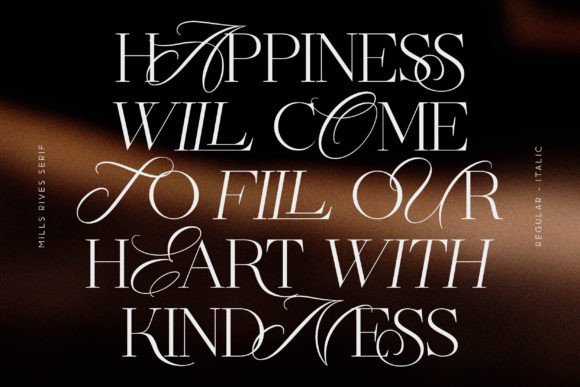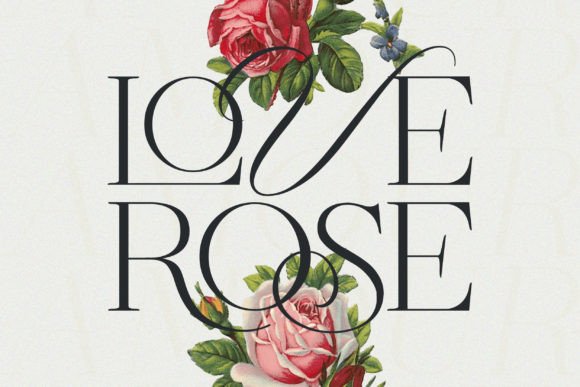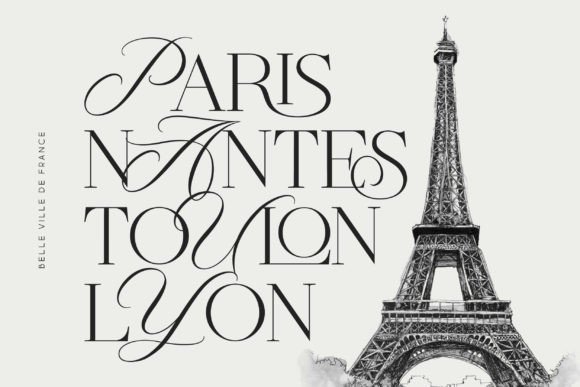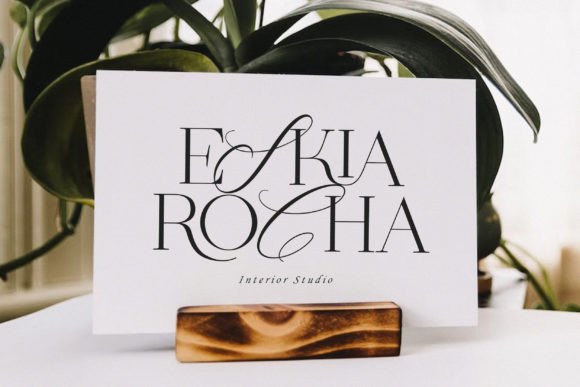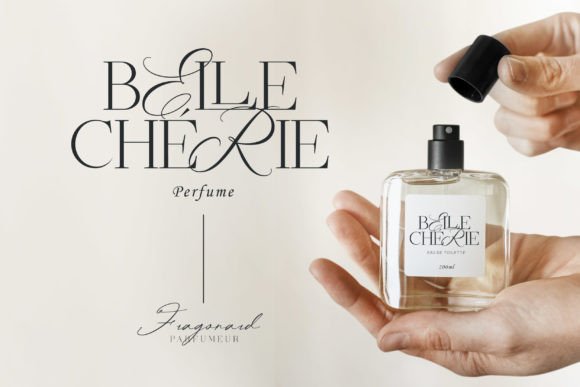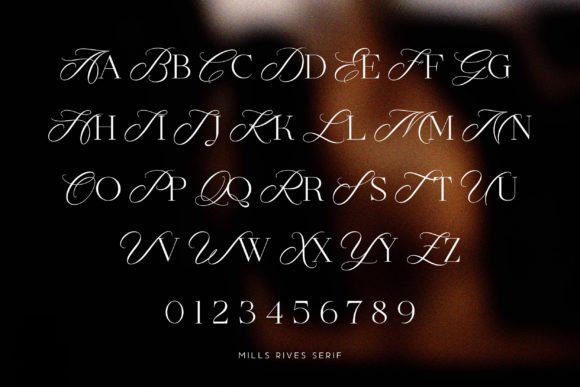
Introduction to Mells Rives Font
Remember that moment when you finally found the perfect font to elevate your design project? The one that makes your ideas shine and leaves a lasting impression? For designers, discovering a high-quality font that fits the bill is a game-changer. One such font that’s been making waves in the design community is the Mells Rives Font – a classic serif font that’s perfect for display or product design.
With its timeless elegance and sophisticated feel, the Mells Rives Font is a valuable addition to any designer’s toolkit. Whether you’re working on a creative project that requires a touch of sophistication or simply need a reliable font for your next design, this font is sure to impress. And the best part? It’s available for free download, making it an accessible design resource for designers of all levels.
Key Features of Mells Rives Font
- Unique, elegant script font ideal for creative projects requiring a touch of sophistication.
- High-quality design resource available for free download, suitable for various applications including logos, invitations, and titles.
- Transparent background option, allowing for seamless integration with any design element.
- Includes multiple font styles and weights, offering versatility for various design needs.
- Designed to work well at high resolutions (up to 300 DPI), making it suitable for print materials and digital displays.
- Perfect for designers seeking a high-quality, free font that adds a touch of elegance to their creative projects.
Honest Review: Mells Rives Font
As a designer, I’m always on the lookout for high-quality fonts that can elevate my creative projects. Recently, I stumbled upon the Mells Rives Font, and I’m excited to share my thoughts on it.
Here’s what works well:
- ✨ High-quality design: The Mells Rives Font has a clean and modern aesthetic that makes it perfect for a variety of design projects.
- ✨ Versatility: This font is incredibly versatile and can be used for both headings and body text, making it a great addition to any design resource.
- ⚠️ Transparent background support: Unfortunately, this font doesn’t support transparent backgrounds, which can be a limitation for designers who need to create designs with a see-through background.
- ⚠️ Limited character set: While the font is free, it only includes a limited character set, which may not be suitable for designers who need to create complex designs.
Overall, I’m impressed with the Mells Rives Font, and I think it’s a great addition to any design resource. While it may have some limitations, its high-quality design and versatility make it a great choice for designers working on creative projects.
Tips for Getting the Most Out of Mells Rives Font
To get the most out of the Mells Rives Font, use it in combination with other design elements, such as images and graphics. Experiment with different font sizes, colors, and styles to find the look that works best for your design. Use the transparent background feature to ensure your text blends seamlessly with your design.
Common Use Cases for Mells Rives Font
The Mells Rives Font is a versatile design resource that can be used in a variety of creative projects, including logos, business cards, and brochures. It’s also a great choice for designing invitations, posters, and other promotional materials. With its high-quality design and transparent background feature, the Mells Rives Font is a valuable addition to any design library.